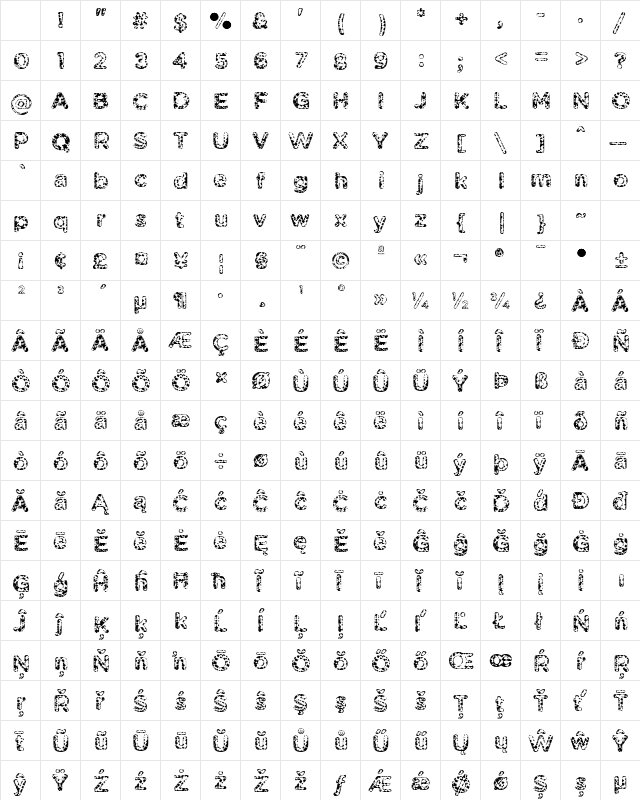
Complete Pabellona (A) Slex Regular glyph index. Displaying only characters natively supported by Pabellona (A) Slex Regular font.
Pabellona (A) Slex is a composed and adaptable typeface that performs quietly and consistently across a wide range of design contexts.